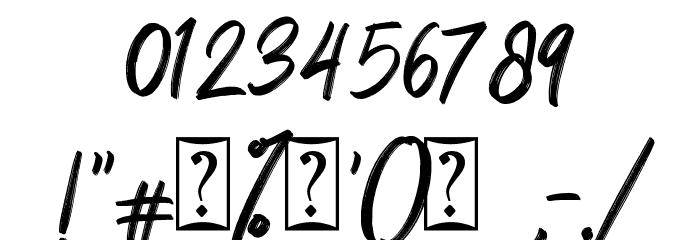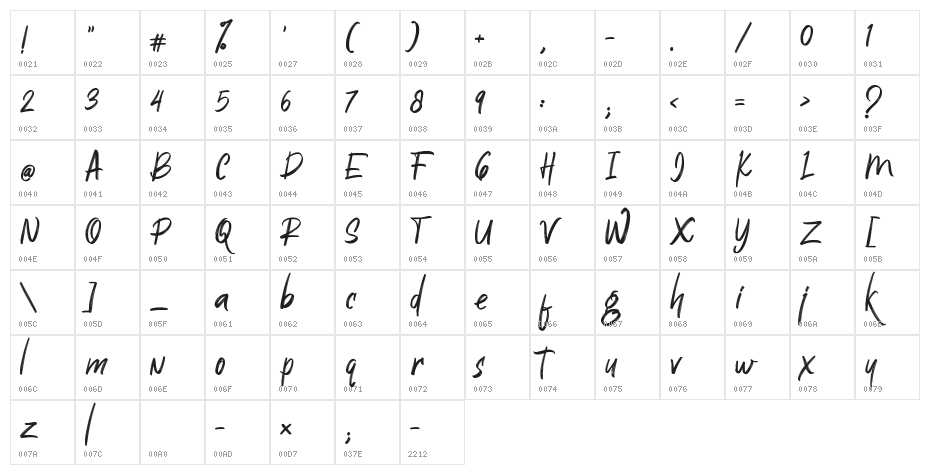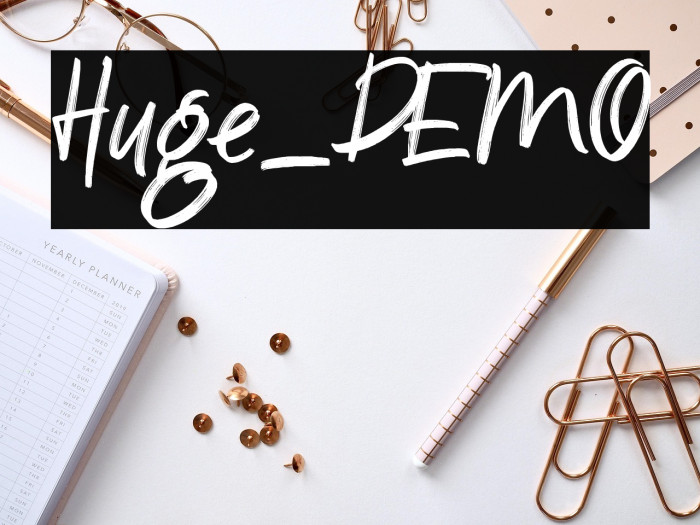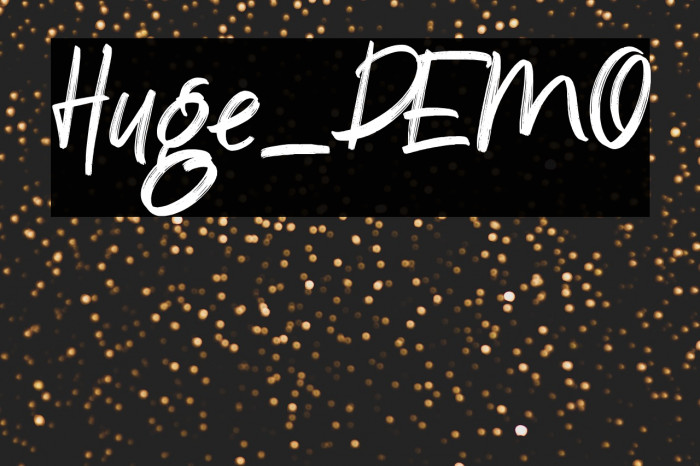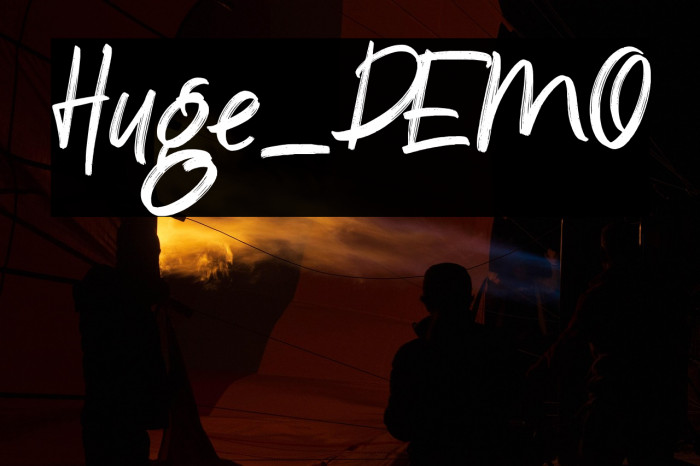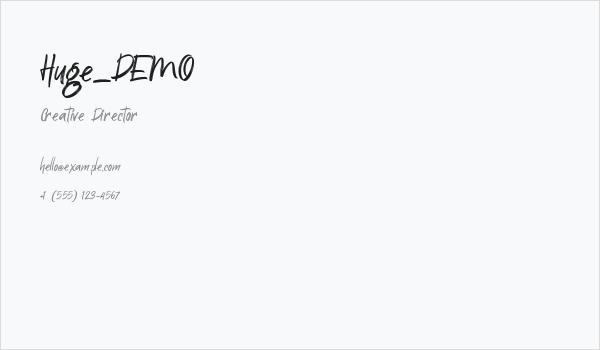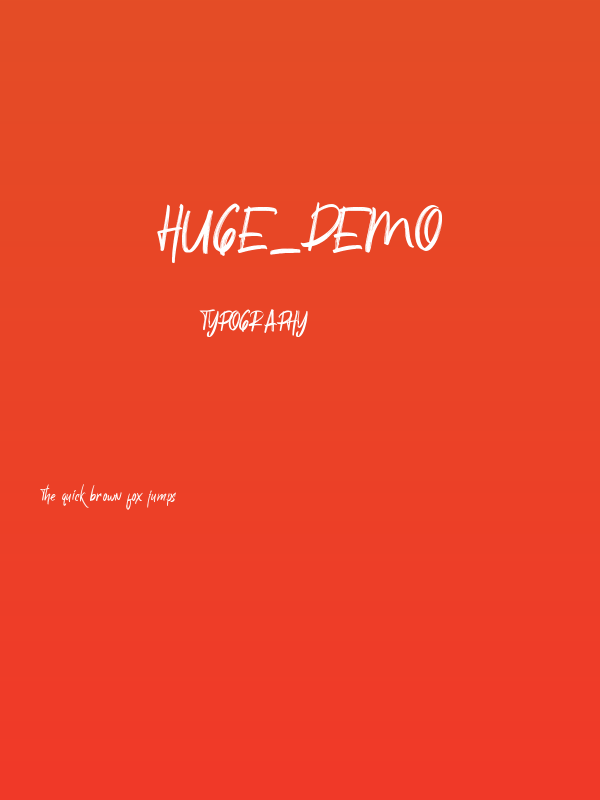
Huge_DEMO Font
Huge_DEMO Description
This font features a dynamic and energetic handwritten style, characterized by its bold and expressive strokes. The letters are slightly slanted, giving a sense of motion and fluidity. The uppercase and lowercase letters maintain a consistent style, with some variation in stroke thickness that adds to the font's lively appearance. The numbers and special characters are designed to match the overall aesthetic, ensuring a cohesive look across all elements. This font's unique personality makes it stand out, perfect for projects that require a touch of creativity and flair.
| Overall Style | Modern, Decorative |
| Proposed Projects | Ideal for creative projects such as posters, invitations, branding, and social media graphics where a personal touch is desired. |